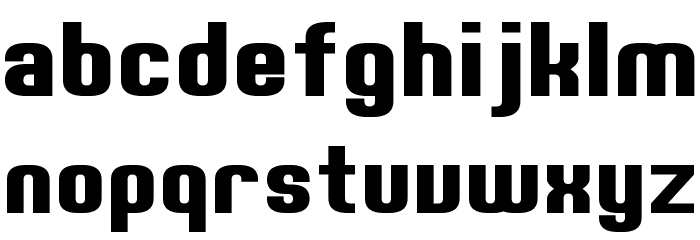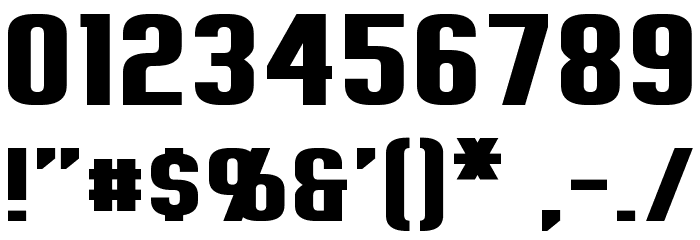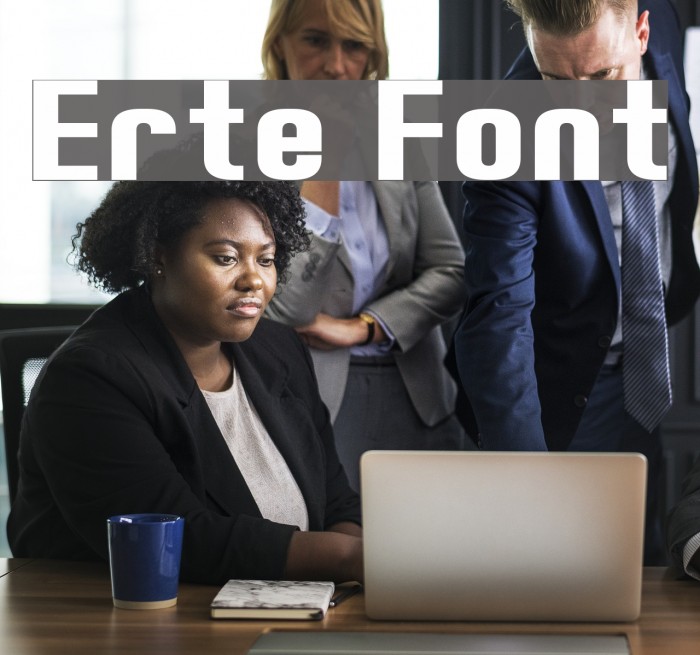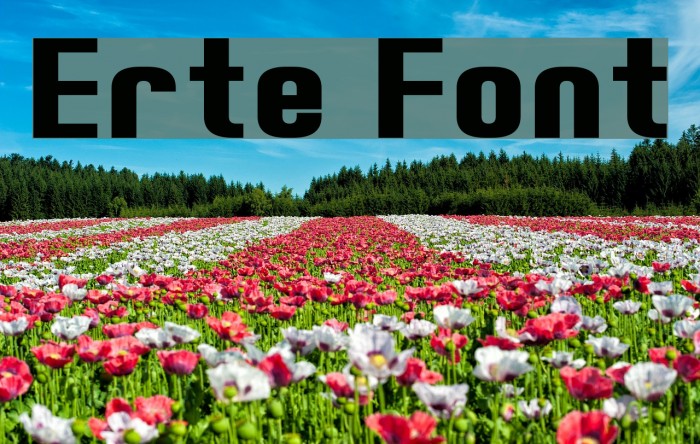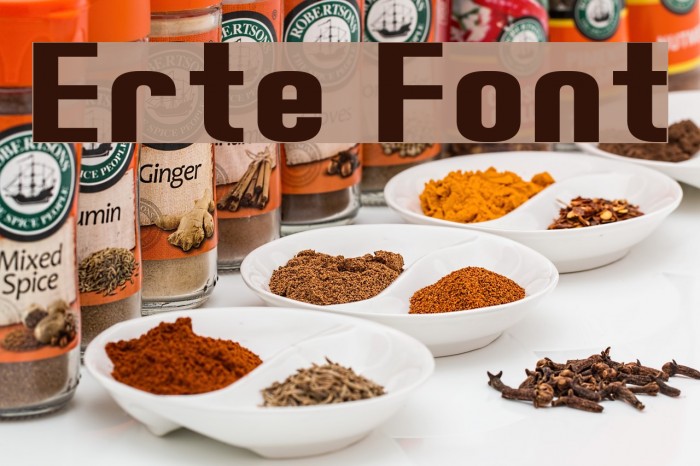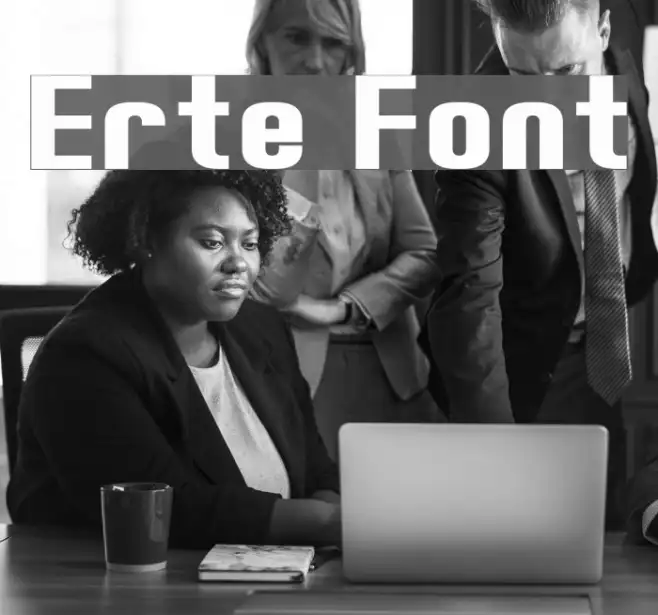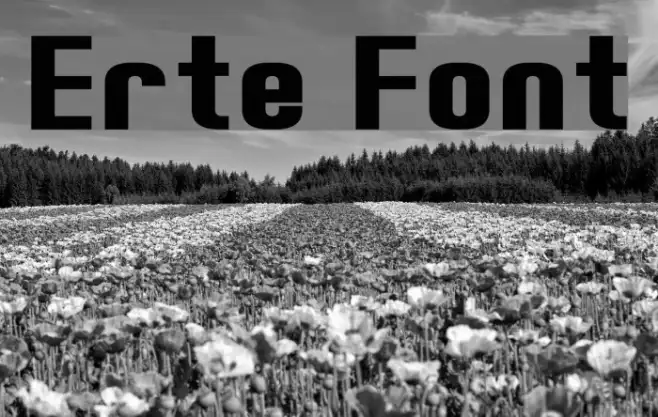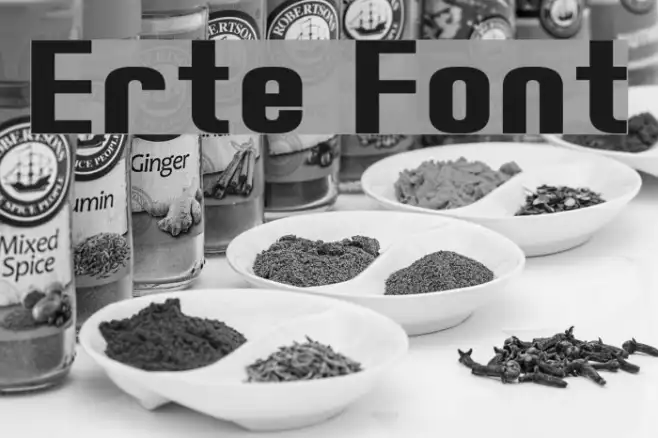
Erte Font
This font features a bold and robust design with a strong presence, characterized by thick, uniform strokes and a geometric structure. The uppercase letters are tall and imposing, while the lowercase letters maintain a consistent weight, providing a harmonious balance. The numerals are clear and legible, matching the boldness of the alphabet. Special characters are designed with the same attention to detail, ensuring they integrate seamlessly into the overall style. The font's design is modern and versatile, making it suitable for a wide range of applications.
A bold, geometric font with uniform strokes and a modern style.
- Proposed Projects: Ideal for branding, headlines, posters, and any project requiring a strong visual impact.